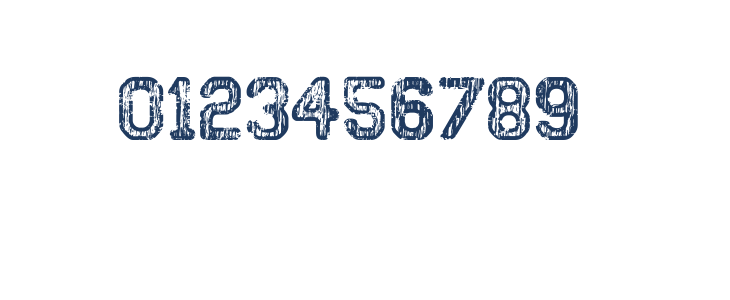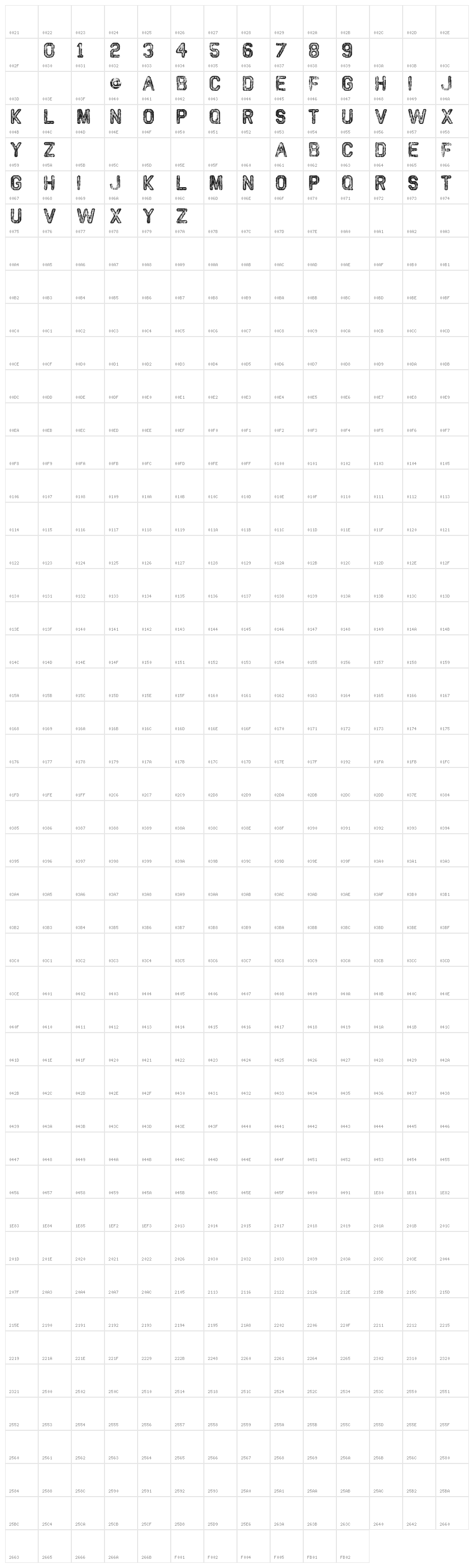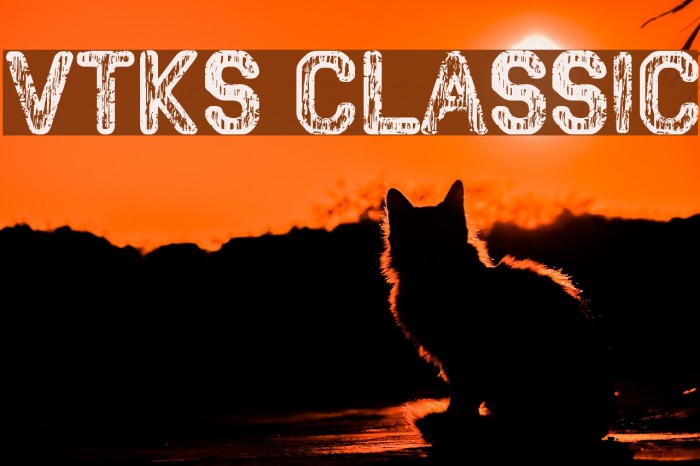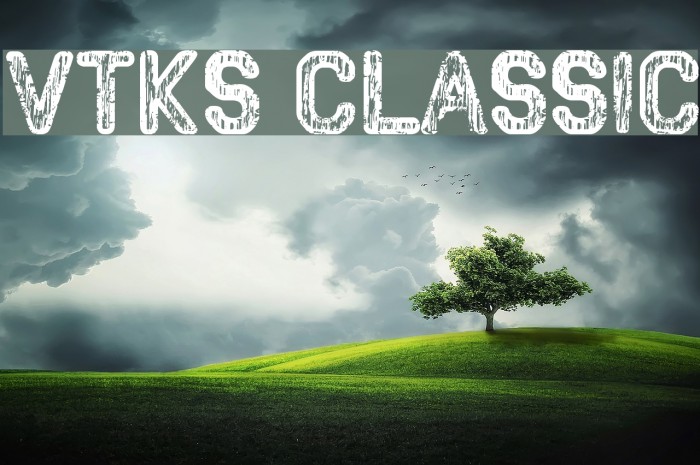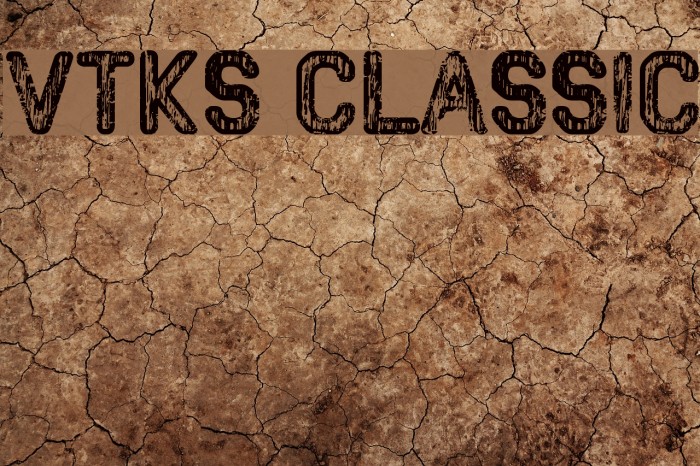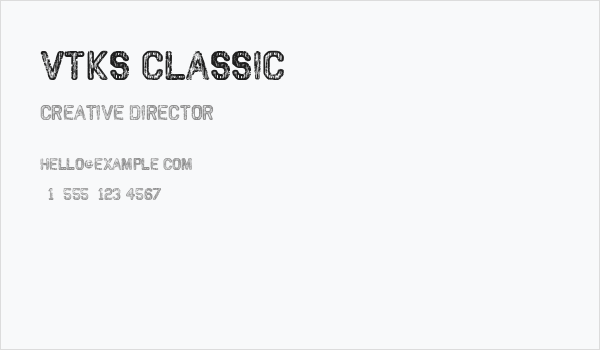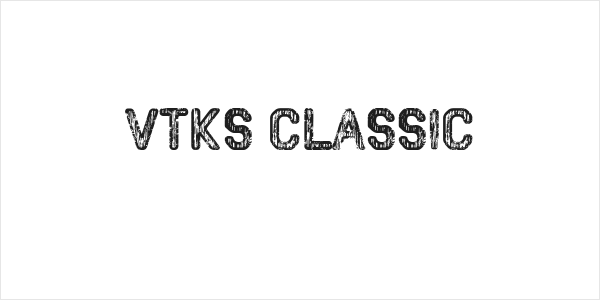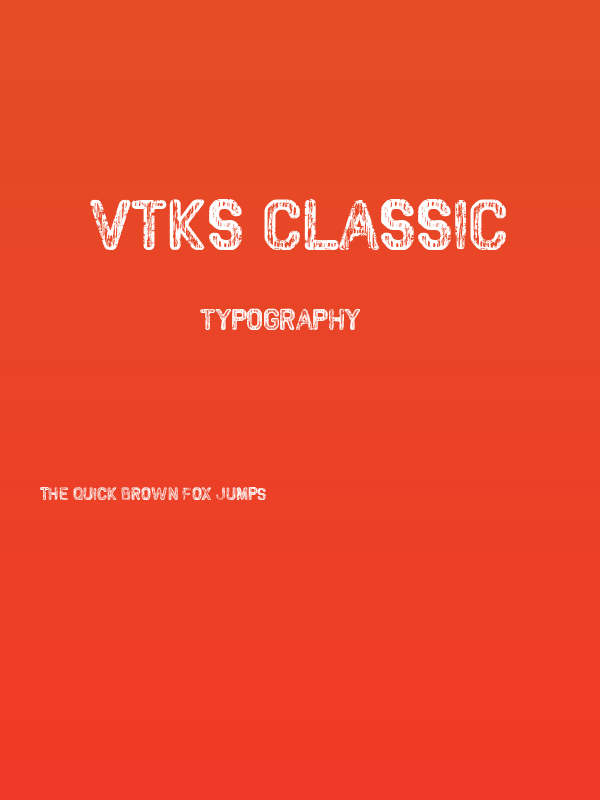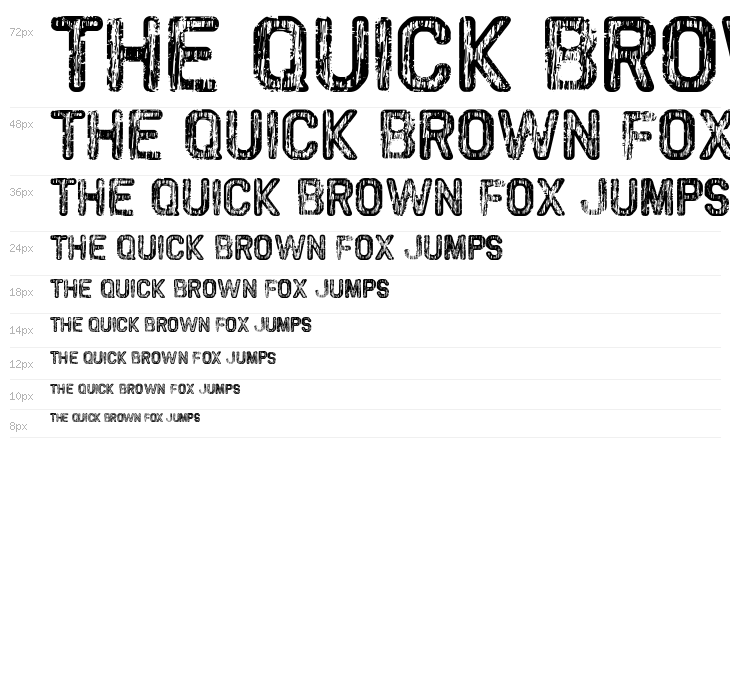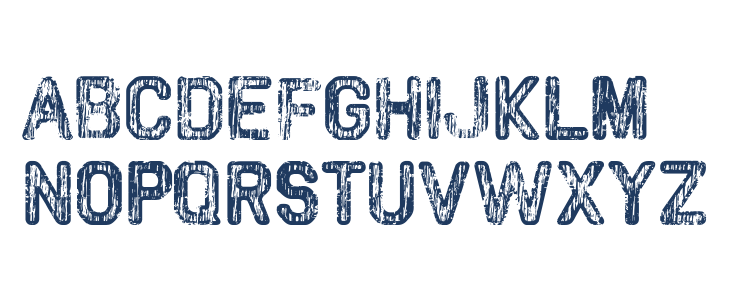
VTKS CLASSIC Font
VTKS CLASSIC Description
This font features a distressed, grunge aesthetic with a bold and rugged appearance. Each character is designed with a textured, worn-out look, giving it a vintage and industrial feel. The uppercase letters are prominent and commanding, while the numbers and special characters maintain the same distressed style. The font's unique texture makes it stand out, adding a sense of character and depth to any design. Its boldness and distinctive style make it suitable for projects that require a strong visual impact.
| Overall Style | Vintage, Grunge |
| Proposed Projects | Ideal for posters, album covers, branding for edgy or alternative products, and any design needing a bold, textured look. |